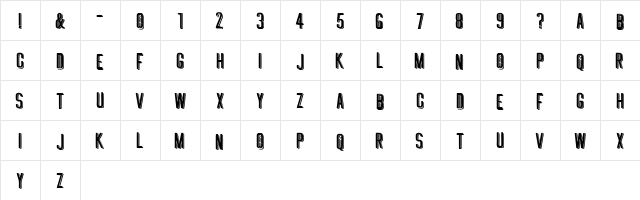
GREETHING BLOCK SHADOW LINE Regular
Design Context for GREETHING BLOCK SHADOW LINE Typeface
GREETHING BLOCK SHADOW LINE is built around its visual character rather than neutral utility — its distinctive forms are designed to make an impression at display sizes. Its slender proportions lend an understated elegance to any composition.
Font Pairing: Pair with a clean neutral sans-serif for body copy to let GREETHING BLOCK SHADOW LINE's character lead without overwhelming the composition.
Pro Tip: Treat GREETHING BLOCK SHADOW LINE as the centrepiece of your typographic hierarchy. One strong heading set in a decorative face can carry an entire layout.